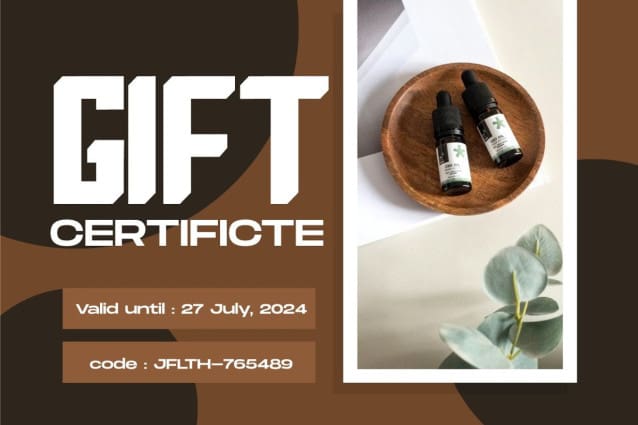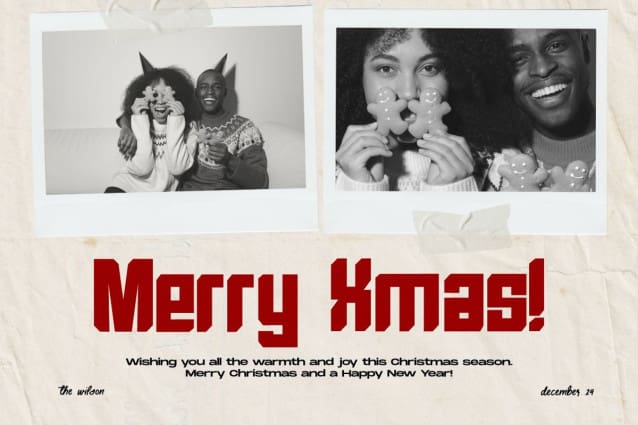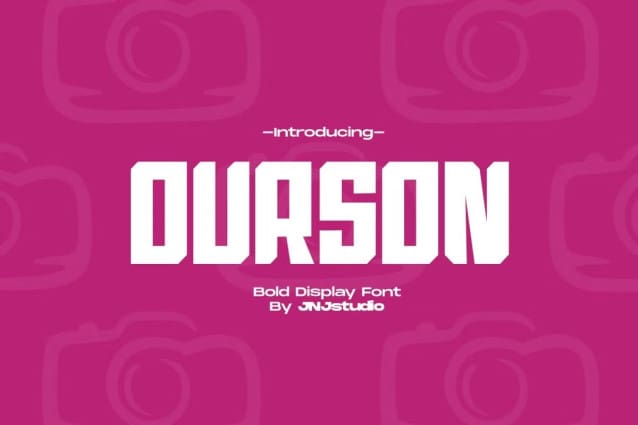
Ourson Display Font
Ourson Display Font is a striking Display Bold font designed to make a powerful visual impact. With its thick, robust strokes and bold character, Ourson commands attention and conveys a sense of strength and modernity. The font features clean lines and a slight geometric influence, making it ideal for headlines, posters, logos, and any design that requires a bold statement. Despite its solid appearance, Ourson maintains readability and versatility across various mediums, ensuring it stands out while remaining functional and aesthetically pleasing.